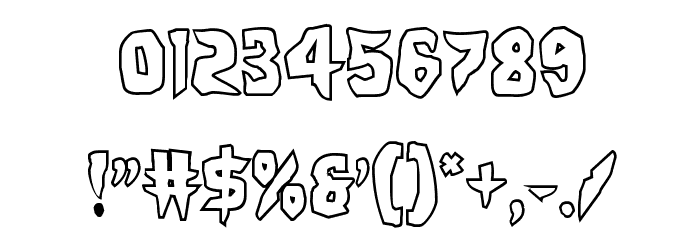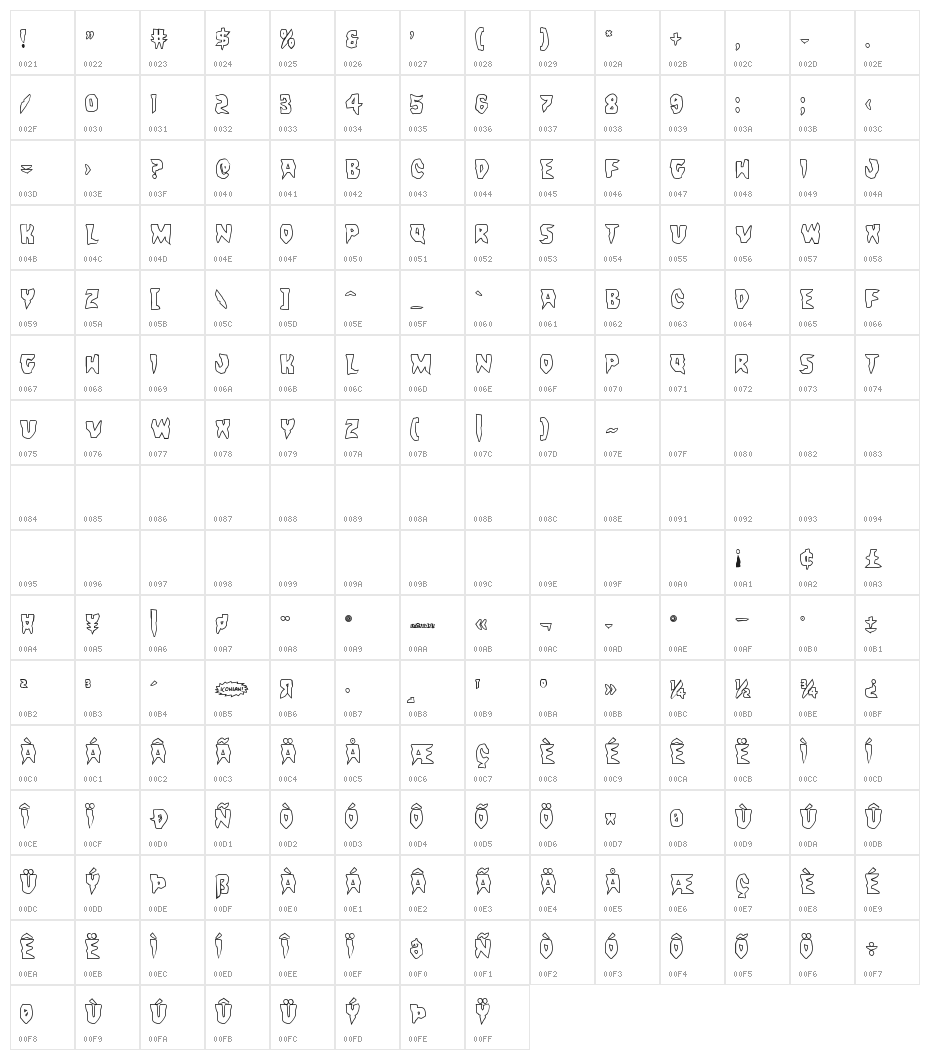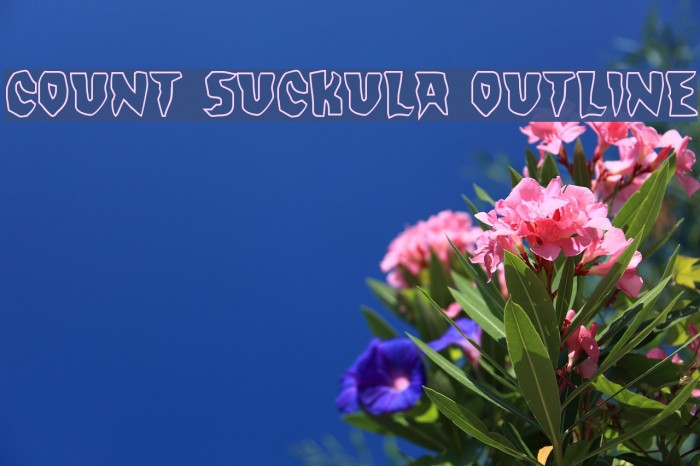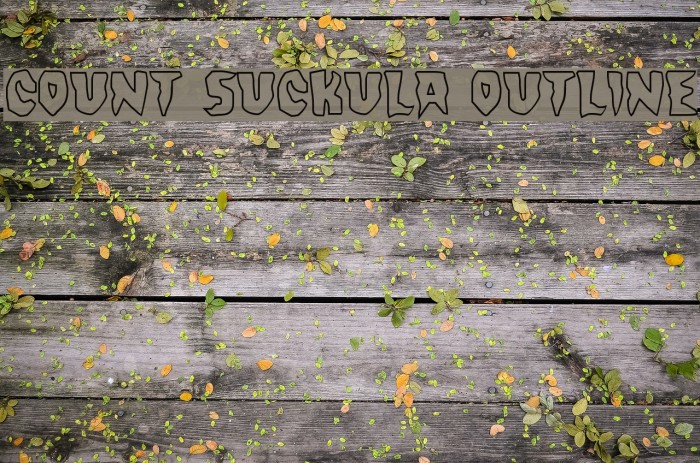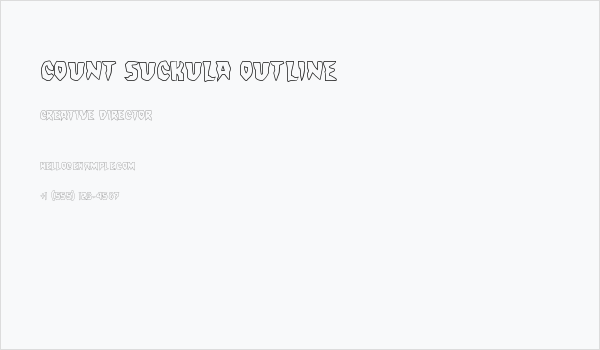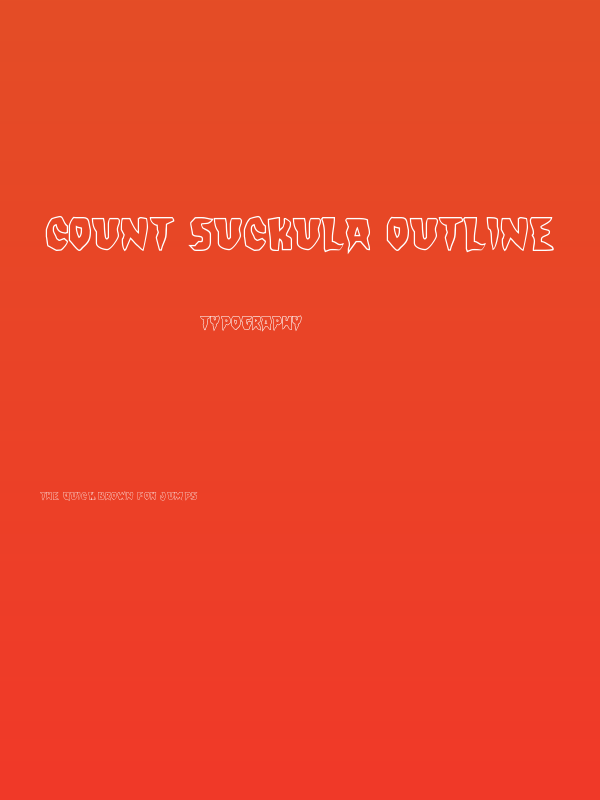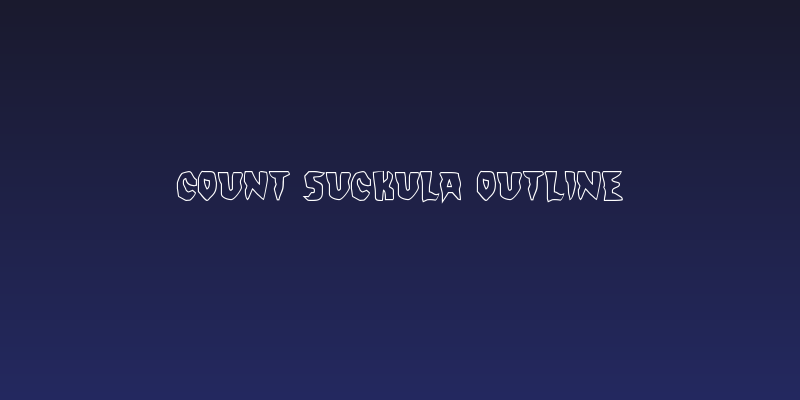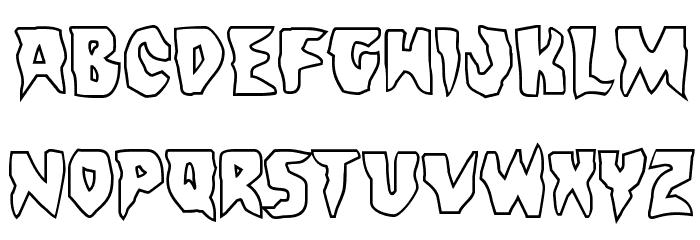
Count Suckula Outline Font
Count Suckula Outline Description
This font features a bold, playful outline style with jagged, irregular edges that give it a quirky and energetic appearance. The characters are uppercase and lowercase, with a consistent outline that adds a sense of depth and dimension. The numbers and special characters maintain the same playful aesthetic, making the font suitable for creative and informal designs. Its unique style draws attention and adds a fun, whimsical touch to any project.
| Proposed Projects | Ideal for Halloween-themed designs, children's book covers, party invitations, and playful branding. |